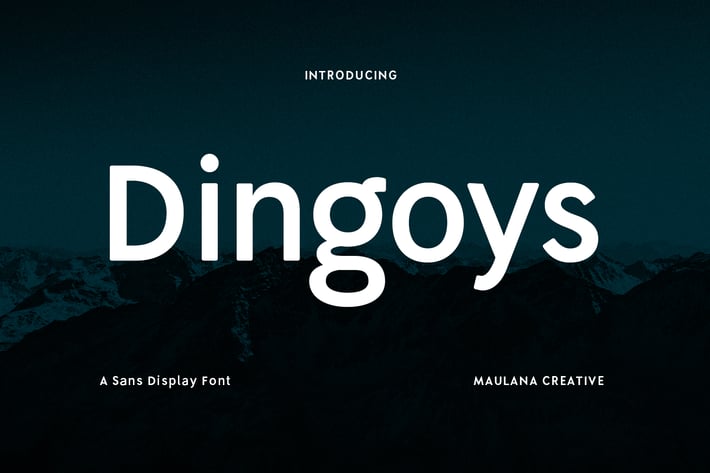
Dingoys Sans Font
Dingoys is a Quirky modern fun sans serif font. With regular consist stroke, fun character with a bit of ligatures and alternates. To give you an extra creative work. Dingoys font support multilingual more than 100+ language. This font is good for logo design, Social media, Movie Titles, Books Titles, a short text even a long text letter and good for your secondary text font with script or serif. Make a stunning work with Dingoys font.